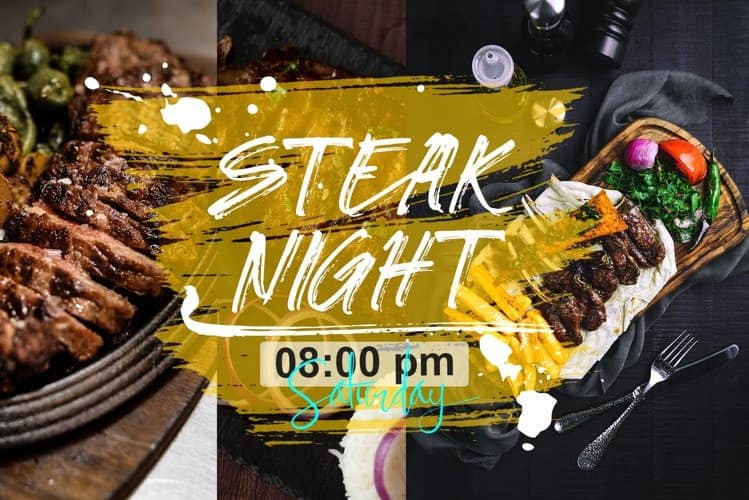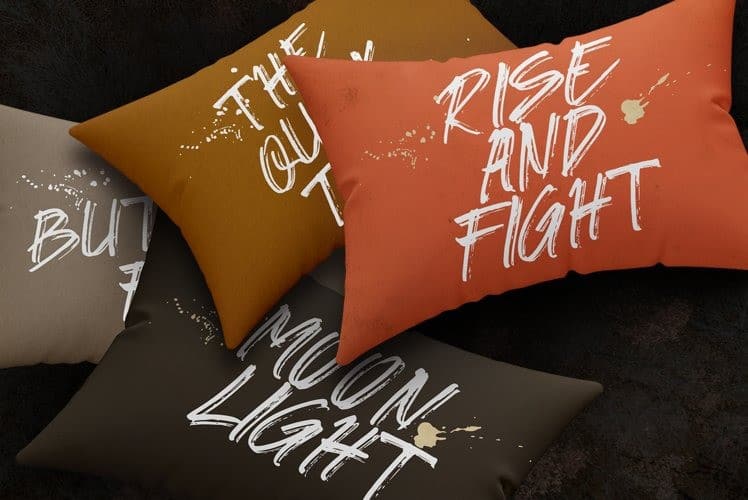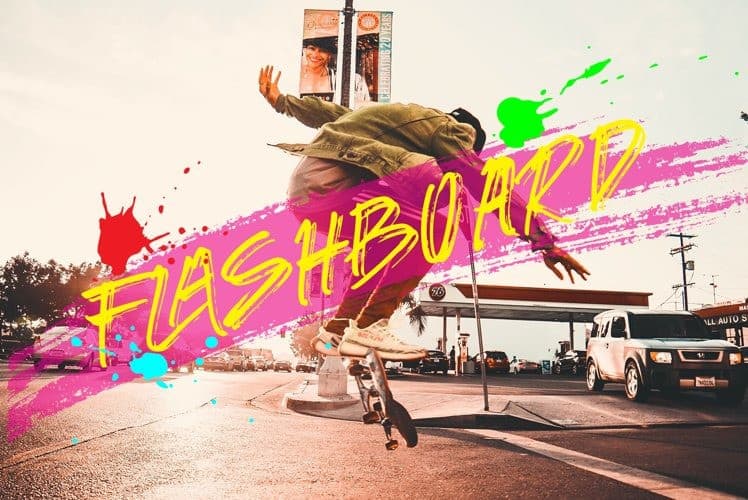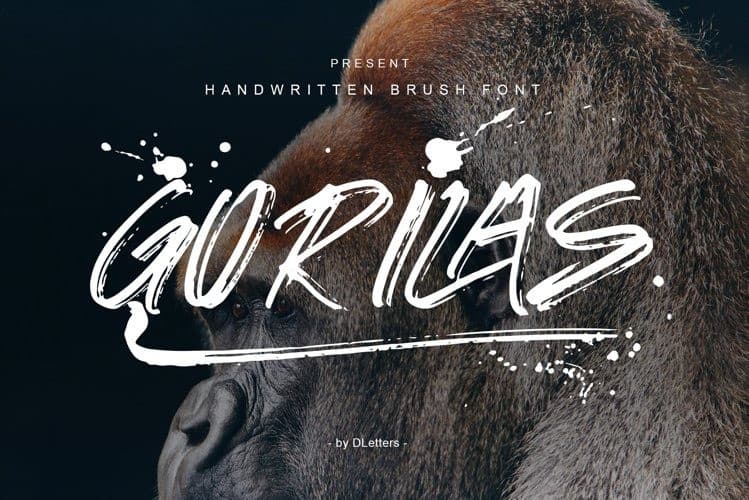
Gorilas Brush Font
Gorilas Brush Font is a handmade brush font, naturally handmade and with underscores. It’s designed and shared by DLetters Std. And it’s a font with an available brushstroke style with a set of uppercase all with number and punctuation support, and Ligatures making this font perfect for your awesome project.
Gorilas Brush Font is perfect for use in title designs such as clothing, invitations, title books, stationery designs, quotes, branding, logos, greeting cards, t-shirts, packaging designs, posters, and more.